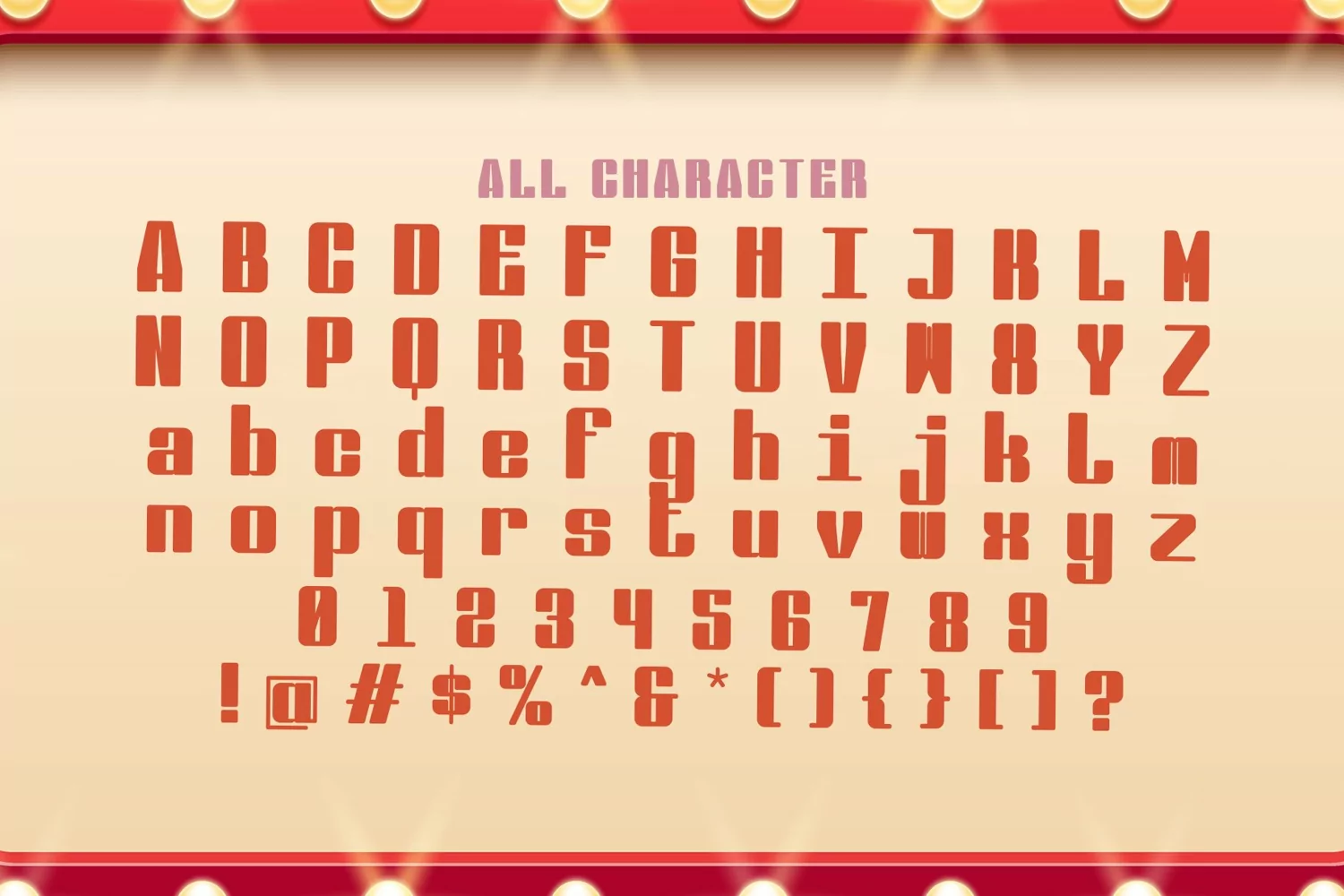
Maynard is a display font and best used for titles, logo and text. Their simple form does not limit the target of design and can be used for any creative work.